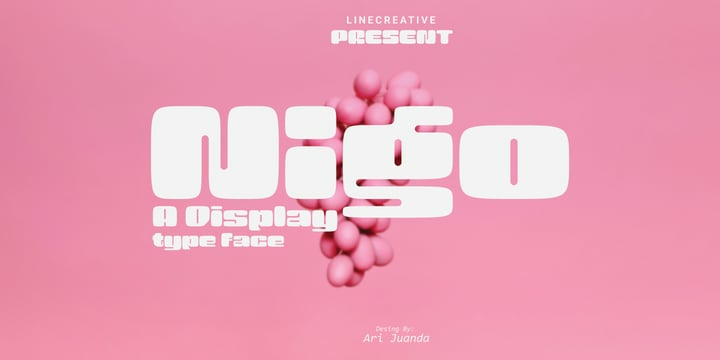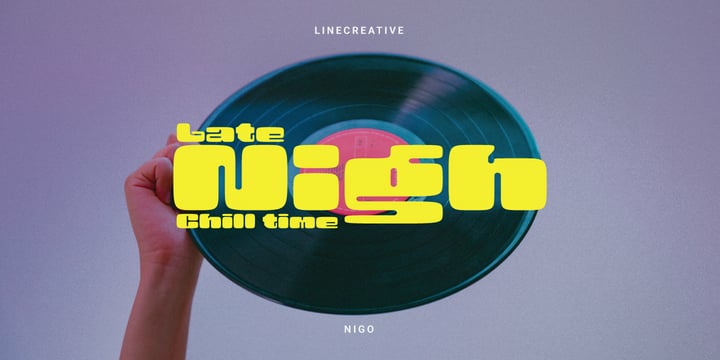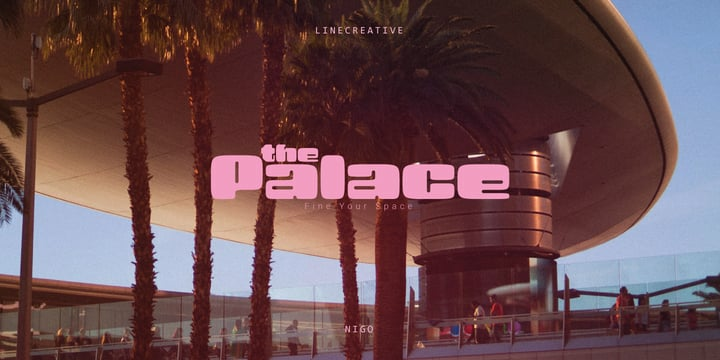
Nigo Font
Nigo FontNigo is a stylish font It has both modern and retro look – clear, modern and fun, Perfect for make any project like header, quote, layout magazine and other. Even better if you use it on 60s and 70s design project